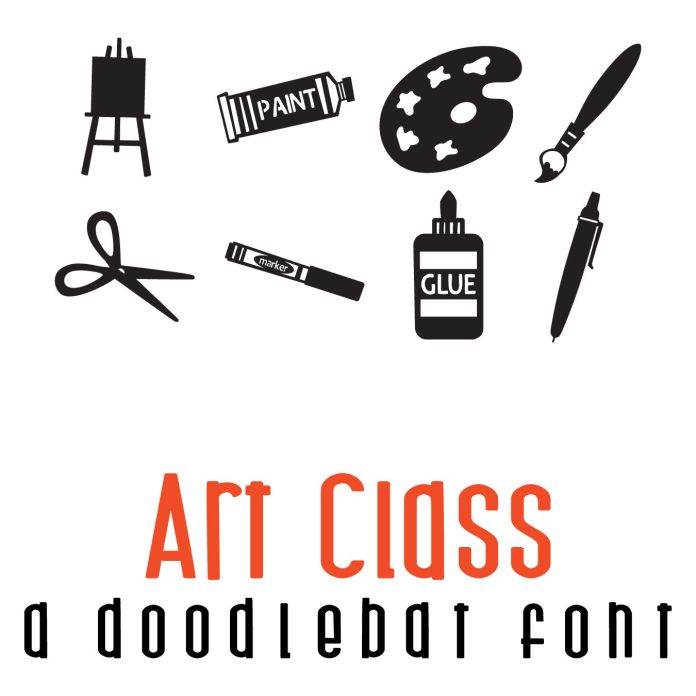
Art Class Doodlebat Font
This doodlebat font features 26 art supplies perfect for cards, crafts, gifts, decor, scrapbook pages, planner stickers, and more!